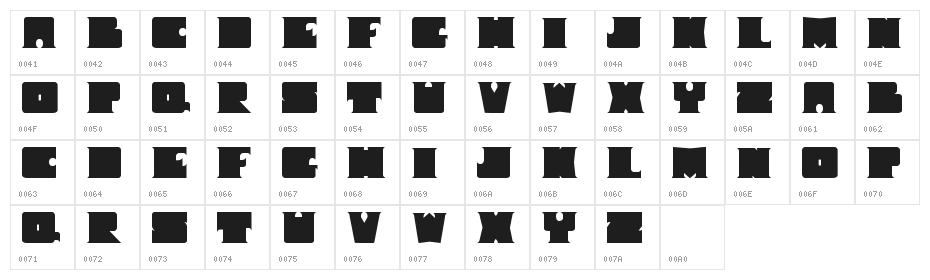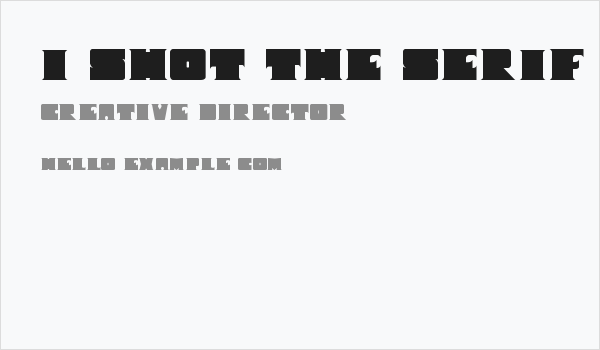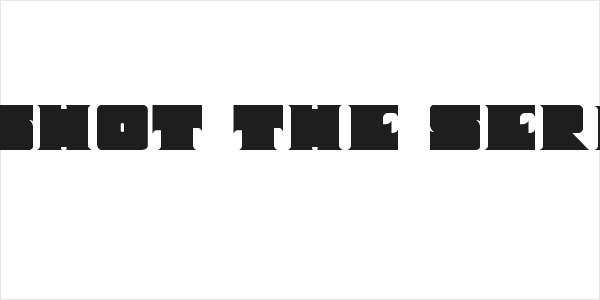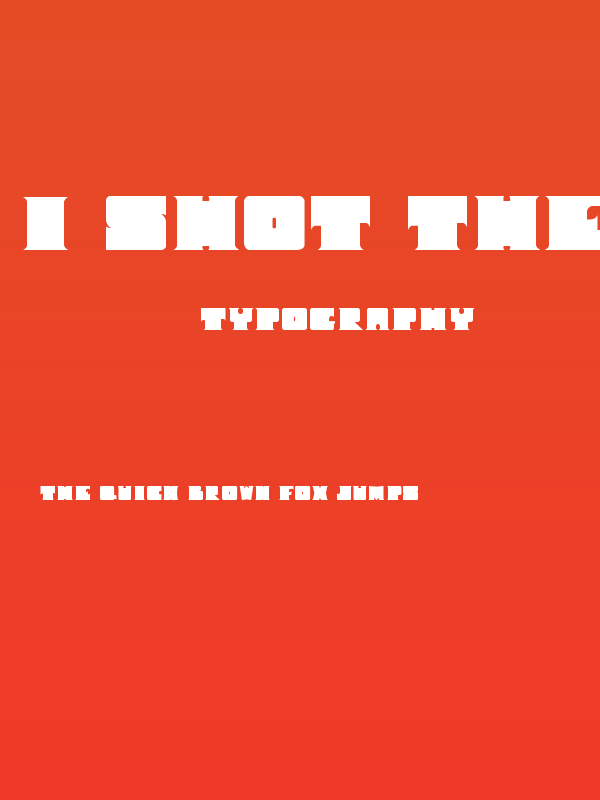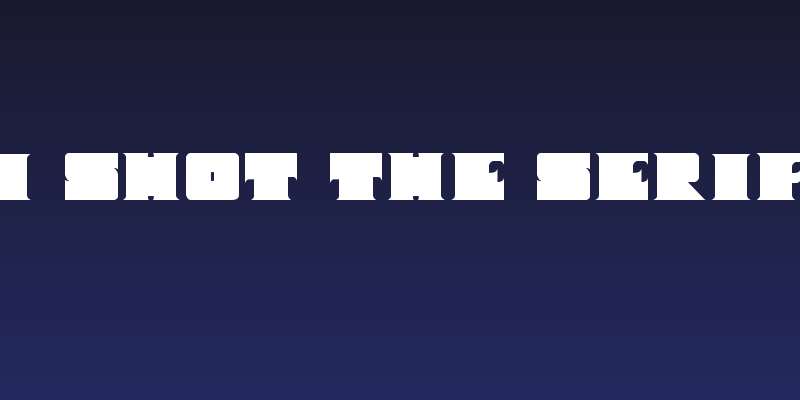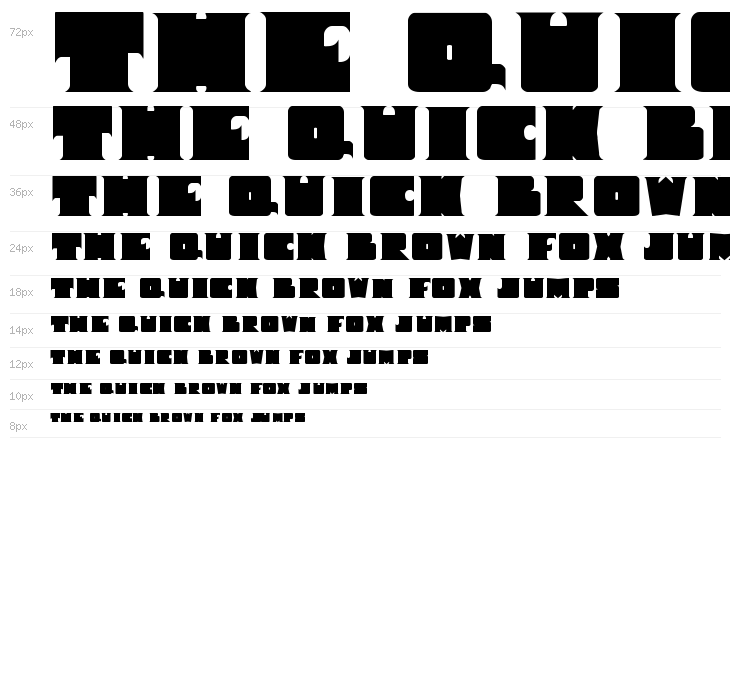
I Shot The Serif Font
I Shot The Serif Description
This font features a bold and striking design with a strong presence. The characters are blocky and robust, with distinct serifs that add a touch of classic elegance. The overall appearance is somewhat reminiscent of vintage Western typography, with a modern twist. The uppercase letters are particularly eye-catching, making them ideal for headlines or titles. The font's unique style is characterized by its thick strokes and angular edges, which create a sense of strength and stability. The spacing between characters is tight, enhancing its compact and impactful look. This font is perfect for projects that require a bold statement, such as posters, logos, or branding materials.
| Proposed Projects | Ideal for posters, logos, branding, and any project needing a bold, impactful typeface. |